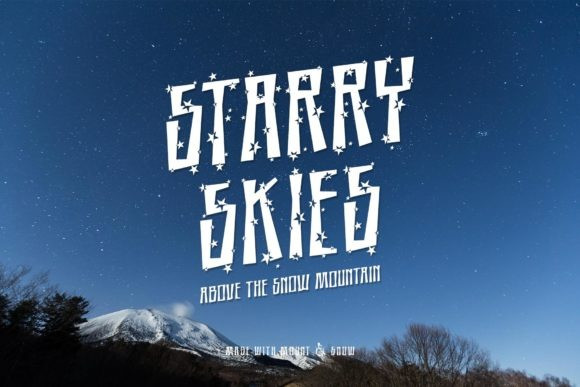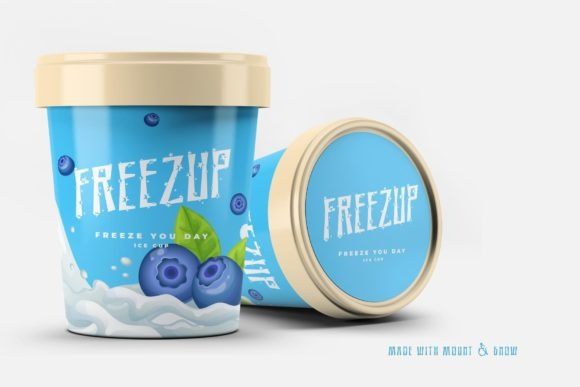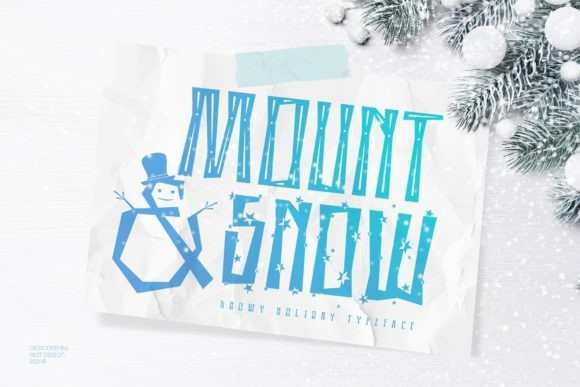
Mount & Snow Font
Mount & Snow Font is a cool, tall and modern display font. Whether you’re using it for crafts, digital design, presentations, or making greeting cards, this font has the potential to become your favorite go-to font, no matter the occasion!